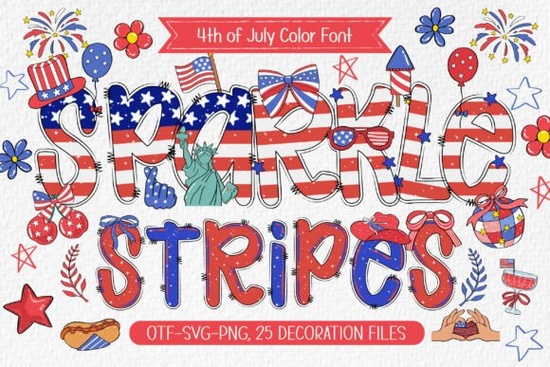
Planning your seasonal merchandise early is the best way to catch the summer shopping rush. If you are designing apparel, party invitations, or scrapbook layouts for Independence Day, you need typography that feels festive without looking dated. The Sparkle Stripes font offers a fresh take on holiday graphics by mixing a trendy preppy aesthetic with classic red, white, and blue tones. You can grab the Sparkle Stripes set on Creative Fabrica to start building your seasonal catalog right away. It gives you everything required to stand out at summer craft fairs or on your Etsy storefront. This festive typography collection is built specifically for creators who want to skip the coloring process and jump straight into layout design.
What comes inside this festive typography bundle?
Instead of a single typeface, you receive four distinct colorful font styles. This variety lets you mix and match weights and patterns across your layouts. The bundle also includes 25 matching decoration cliparts. These graphics feature stars, stripes, and holiday motifs that coordinate perfectly with the lettering. Having pre-drawn elements saves hours of drawing time. You can use the stars to fill in negative space or frame your main text block. If you want a different textured look for your rustic designs, you might also explore options like a hand-drawn nautical typeface to pair with your Americana themes. Combining different styles keeps your shop inventory diverse and visually interesting.
How can print-on-demand sellers use these graphics?
Creating seasonal t-shirts and tote bags requires bold, readable artwork. The preppy vibe of this lettering works perfectly for boutique-style apparel. You can arrange the characters into wavy layouts for tank tops or keep them straight for classic crewnecks. Beyond clothing, these assets are ideal for party supplies. Design custom birthday banners, cupcake toppers, and backyard BBQ invitations. If your audience prefers a retro aesthetic, you could incorporate a nostalgic wavy typeface as a secondary text element to contrast with the structured holiday stripes. Small businesses can also use the 25 included cliparts as standalone stickers or water bottle decals. Because the colors are already baked into the files, production time is significantly reduced for high-volume summer orders.
Can you use pre-colored fonts with cutting machines?
What are some creative scrapbook ideas for the holiday?
Summer memories deserve vibrant layouts. Use the included cliparts to frame family photos from fireworks displays, local parades, or beach trips. The lettering works well for page titles, journaling blocks, and date stamps. You can mix the bright red and blue characters with plain black text if you need a neutral anchor for the page. When looking for a more whimsical background texture, browsing through a playful handwritten style can give your photo albums a personal, handmade touch. Crafters can also print the graphics onto cardstock to create physical tags for gift wrapping or homemade treat bags to share with neighbors.
Practical checklist for your next summer project
- Plan your color palette: Since the font provides the red, white, and blue, use solid navy or crisp white backgrounds to make the typography pop.
- Test the cliparts: Scale the 25 included graphics up and down to find the perfect size for your invitations or scrapbook corners before finalizing the layout.